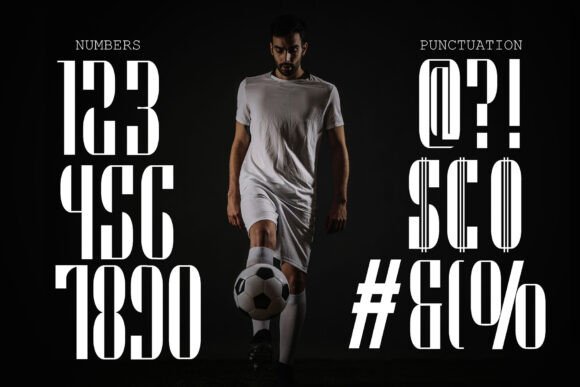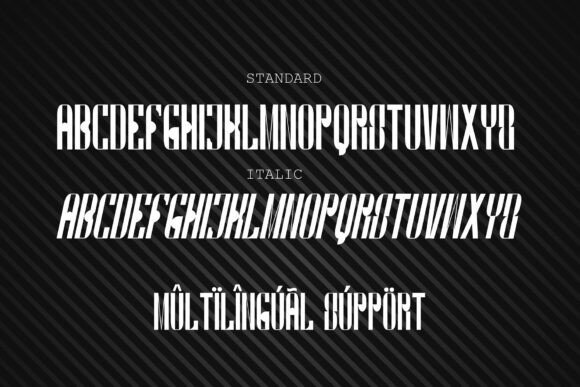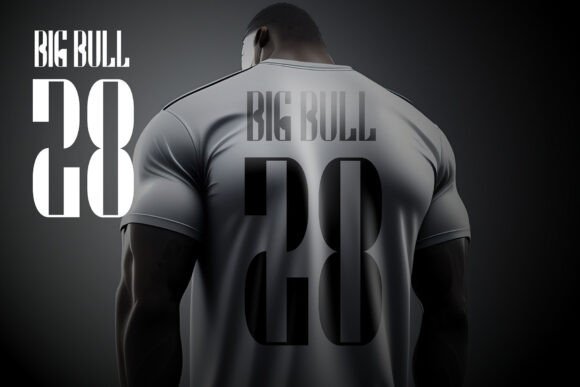
Introduction to Deranios Font
Welcome the future of typography with Deranios, an elegantly sleek, dynamic display font that encapsulates the essence of speed, accuracy, and finesse.
Crafted with an eye for detail, this modern sporty font lends itself beautifully to high-energy environments Its tall, slender characters whisper of sophistication, while their sharp structure boasts of a clean, minimalist aesthetic.